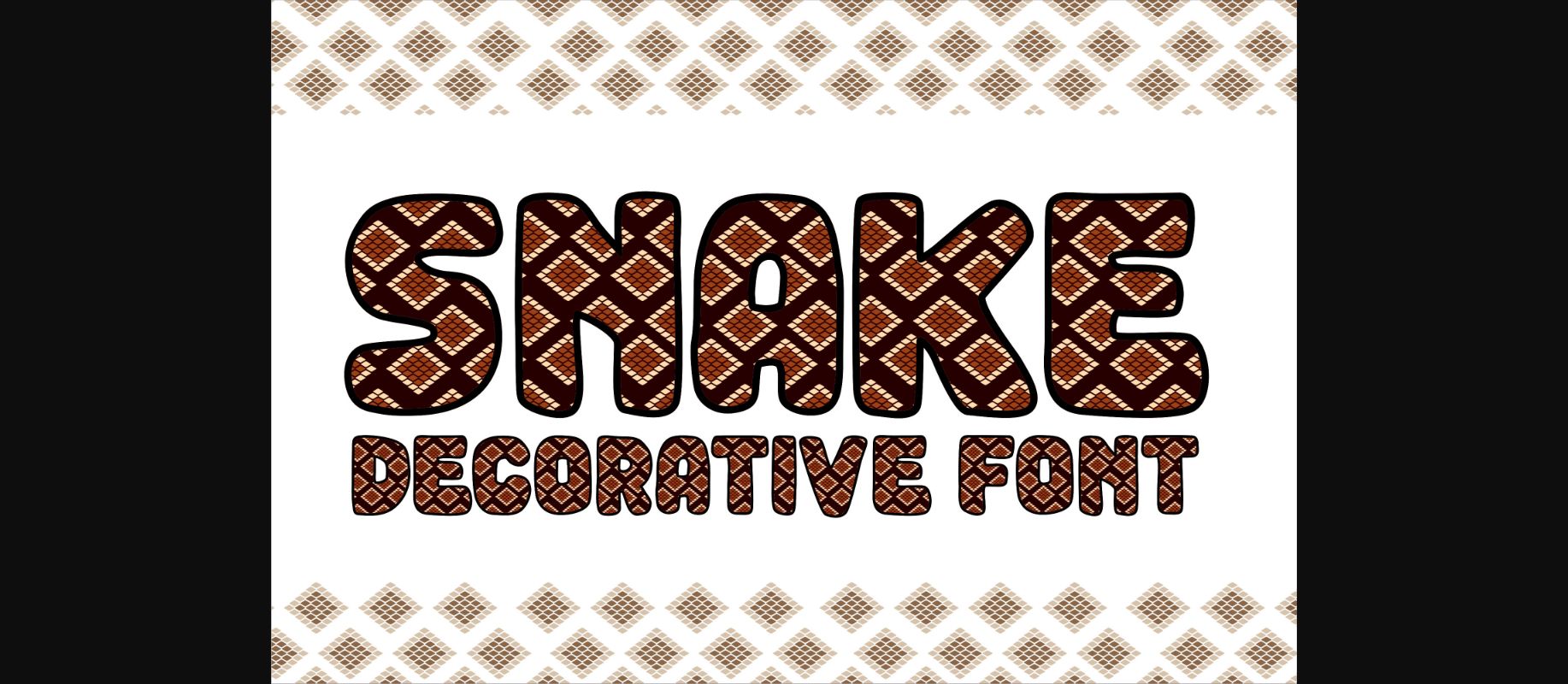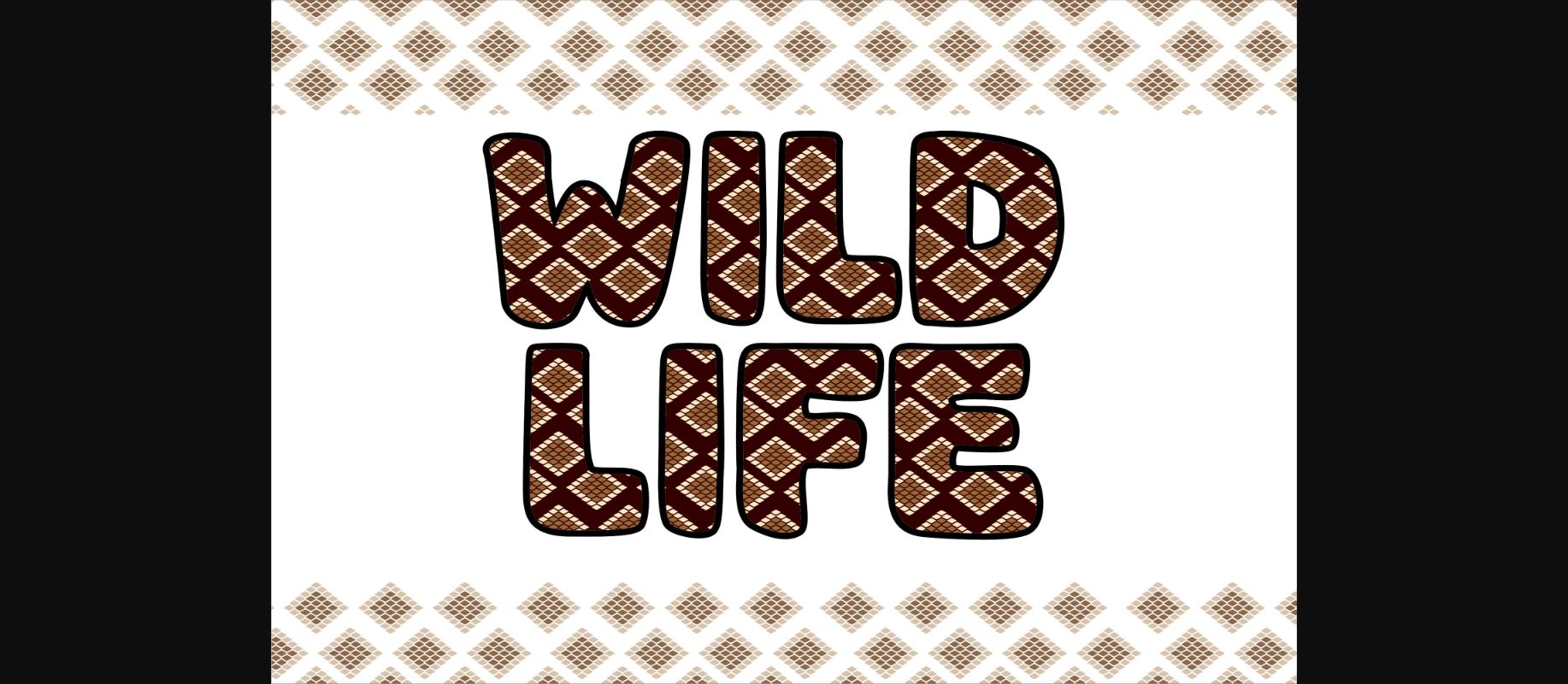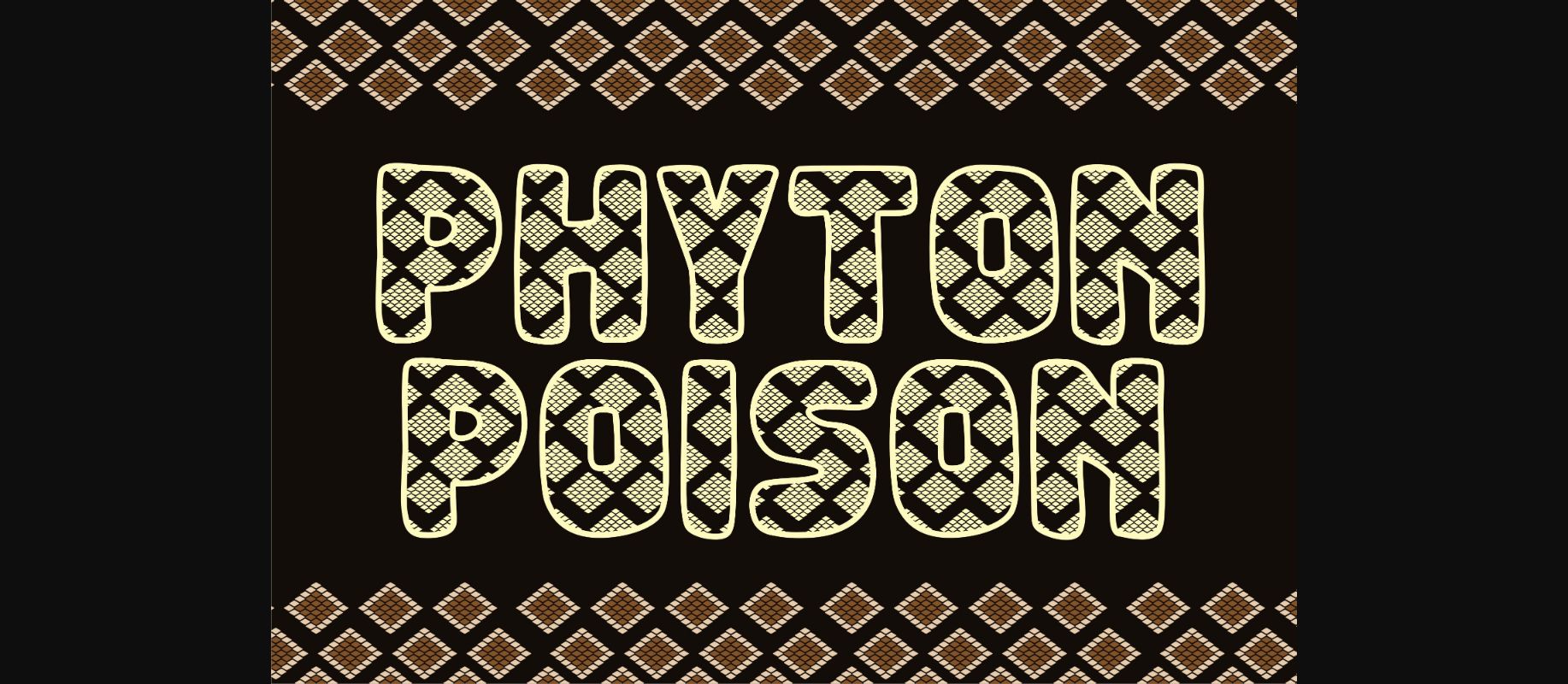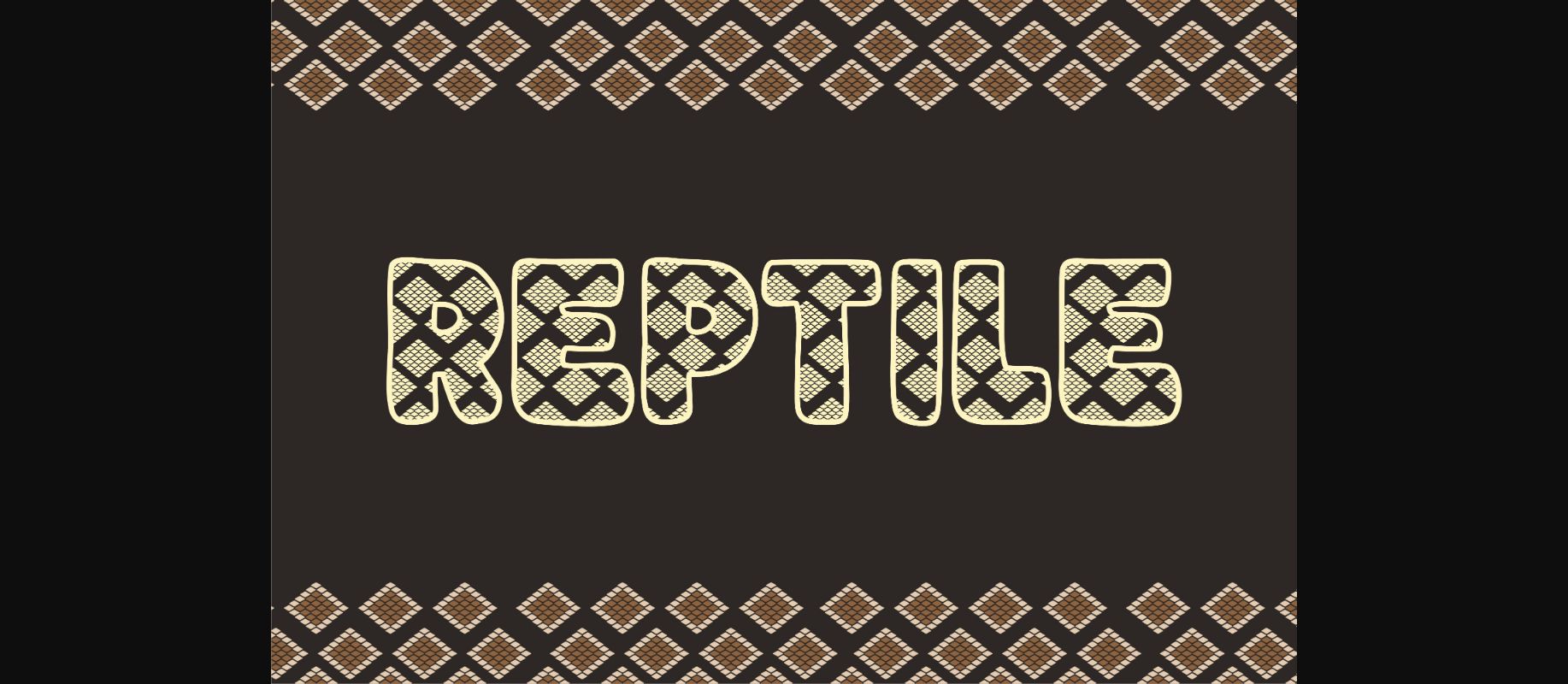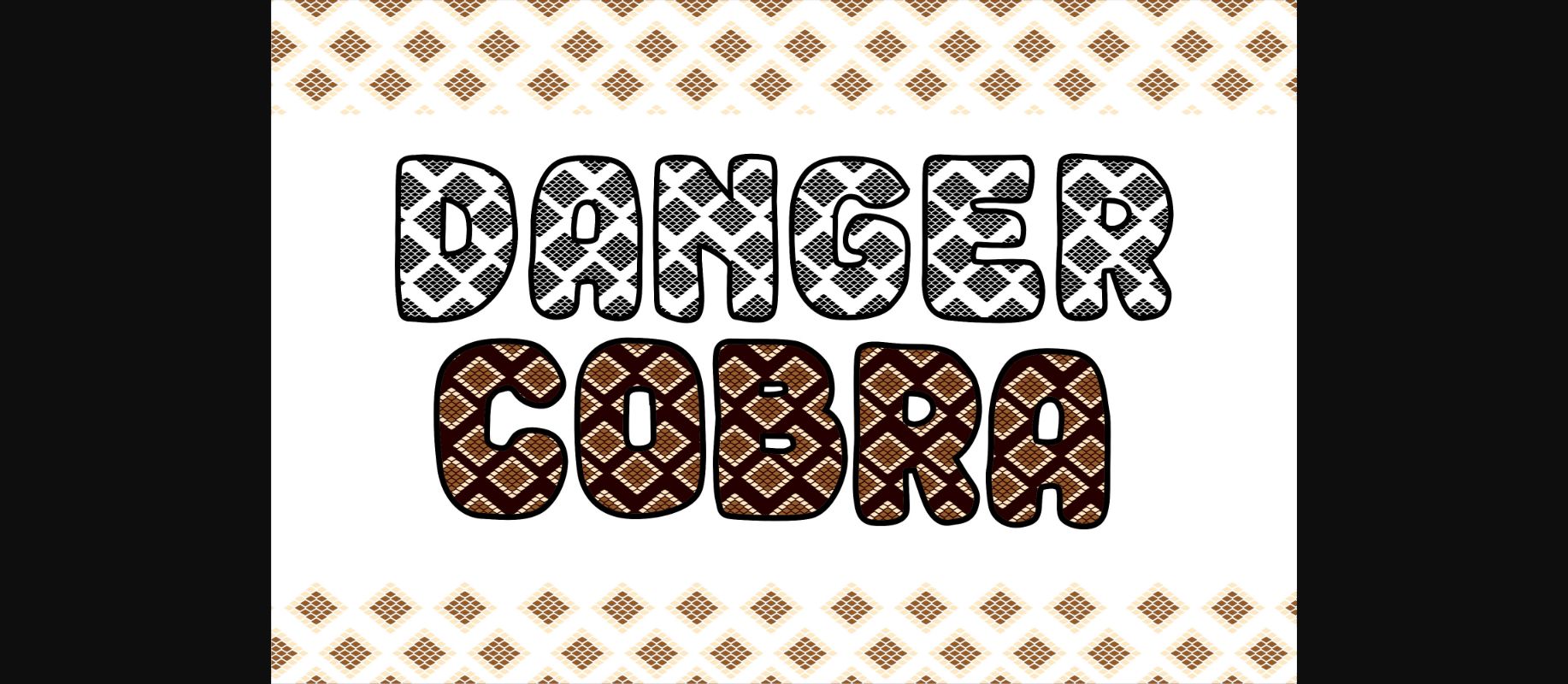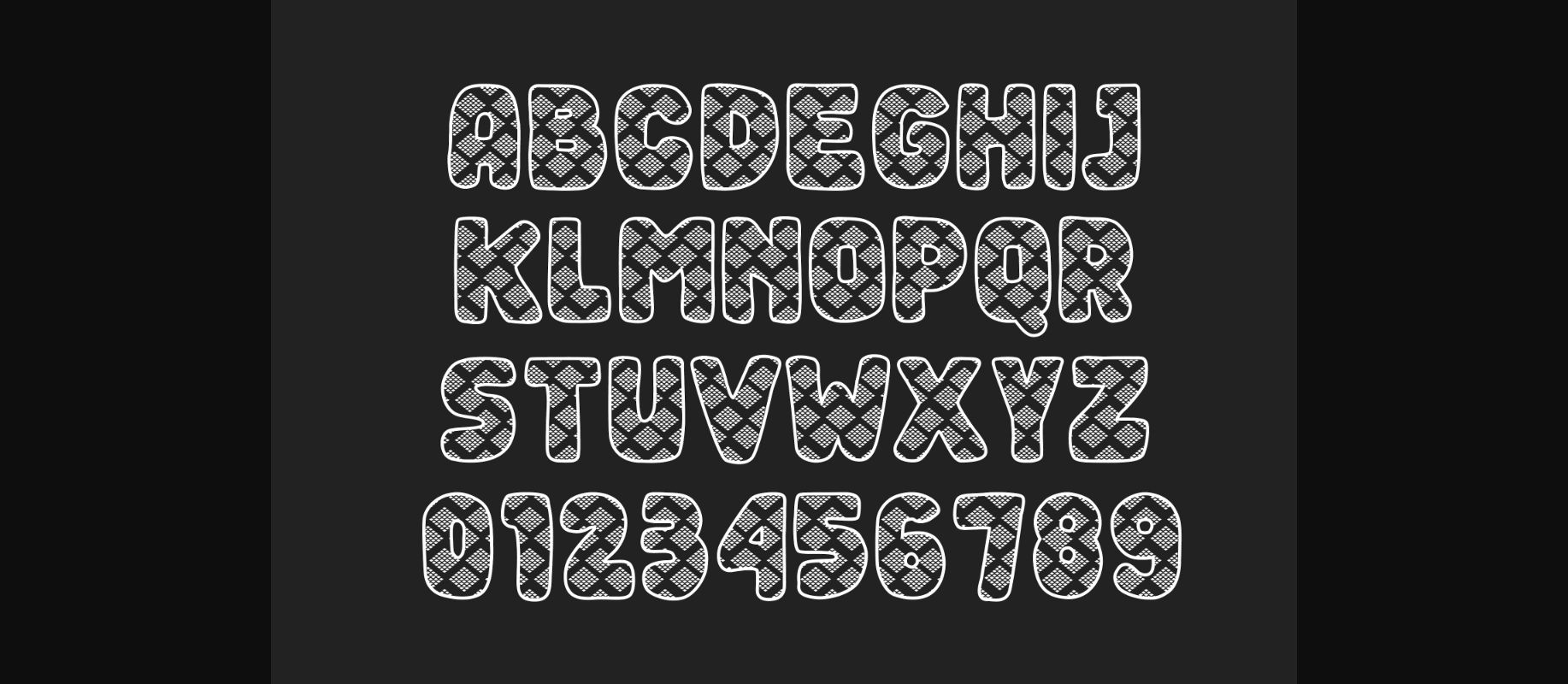
Snake Font
About Snake Font
Snake is a decorative font with a snakeskin texture. This font is perfect for nature-themed designs and for children’s themes. No matter the topic, this font will be an incredible asset to your fonts’ library, as it has the potential to elevate any creation.